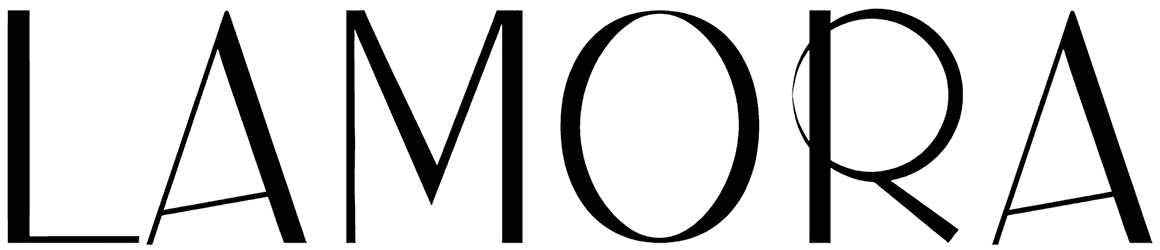
Lamora Font
In addition to being a trendy font, Lamora’s naturalistic lines and fancy appearance also make it a seductive choice. Even though it doesn’t have lowercase letters, this fashion magazine font can be used for a lot of different things, like making greeting cards, branding, and even posters.